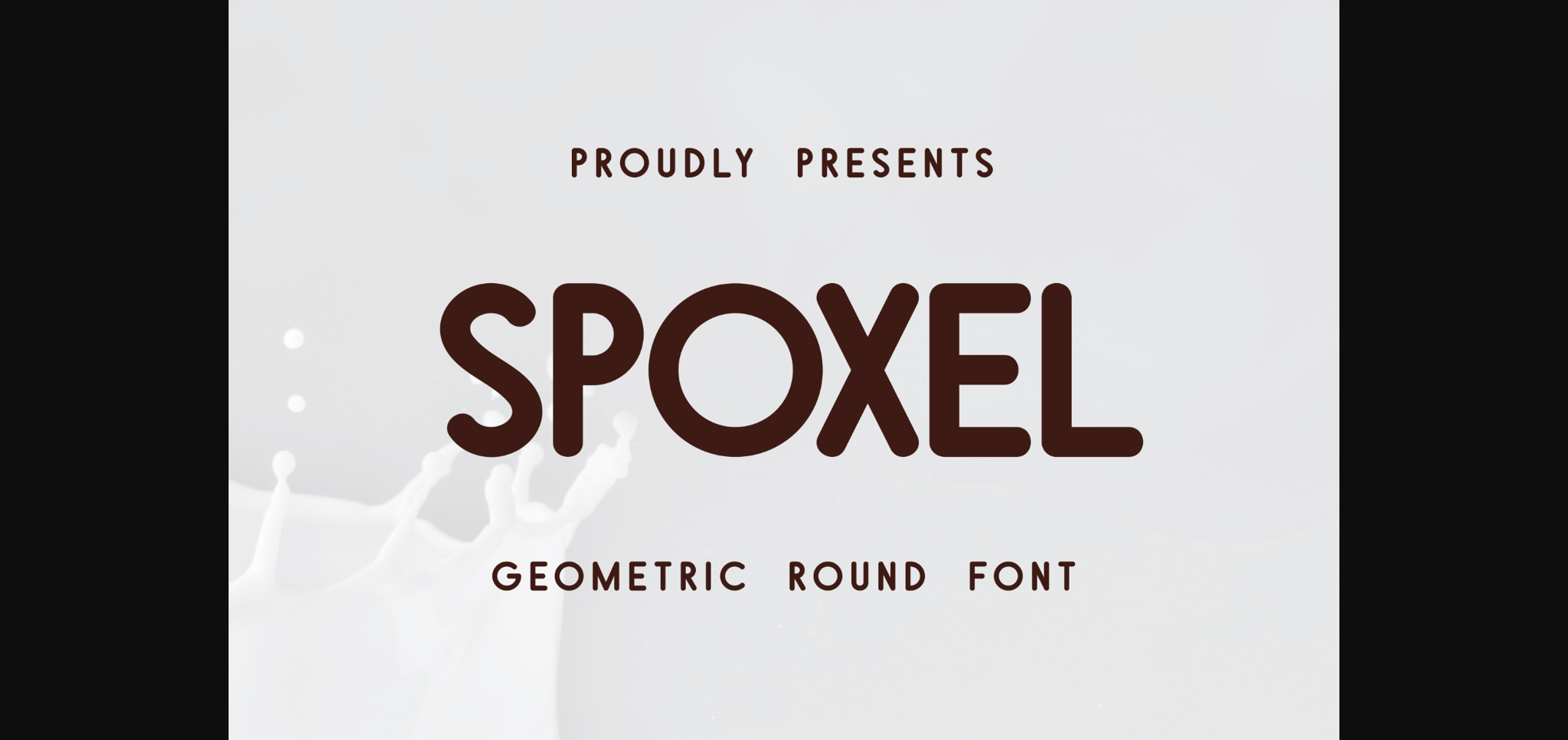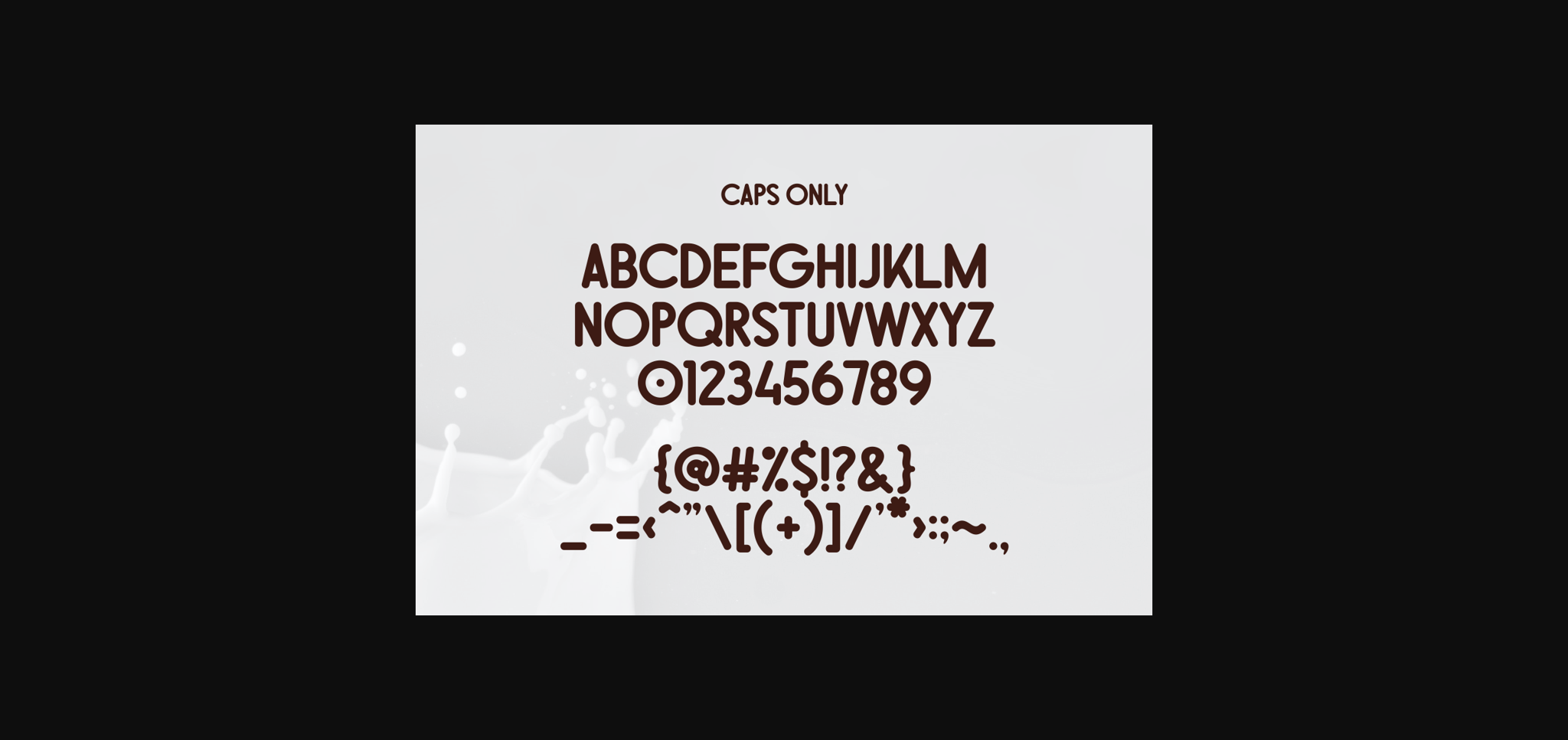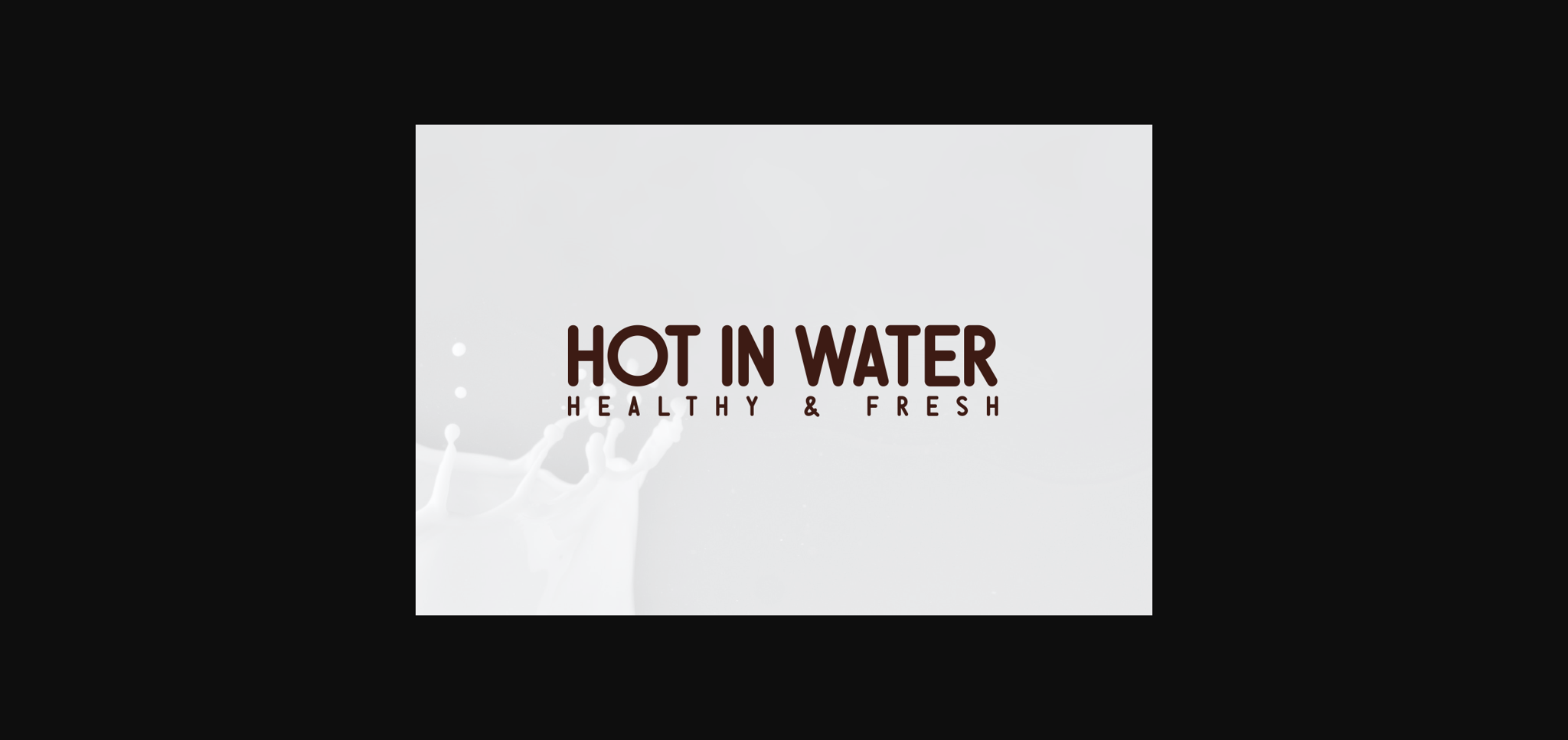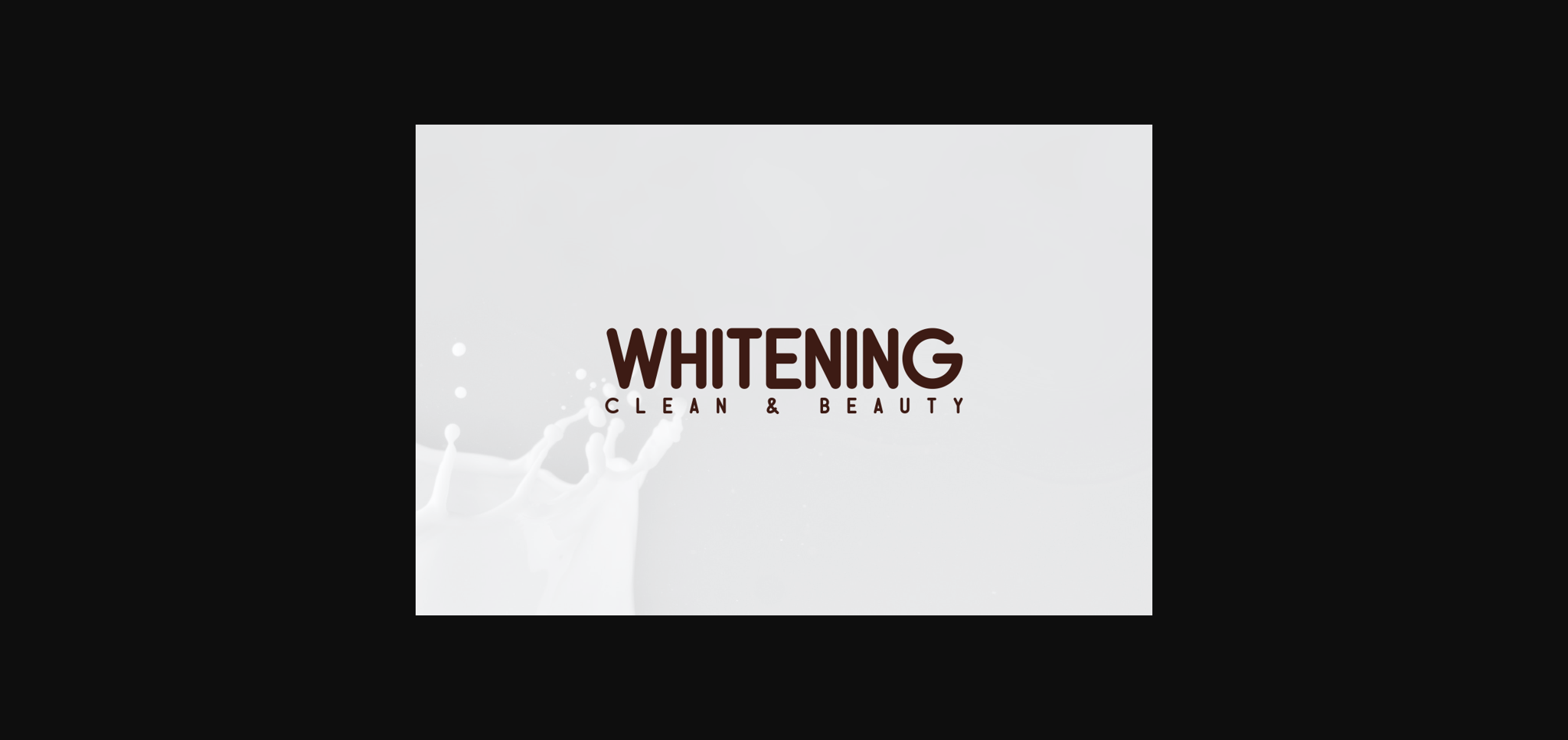
Spoxel Font
About Spoxel Font
Spoxel is a rounded sans serif font that maintains the geometric shape of an arc. Use this font on your posters, flyers, social media, business cards, logos and so much more.